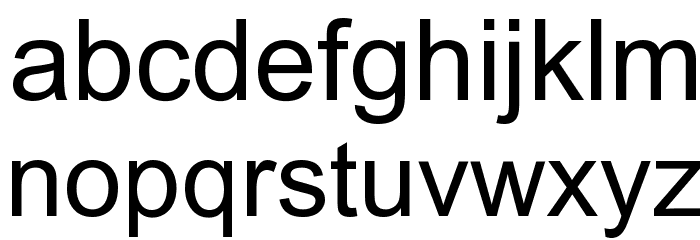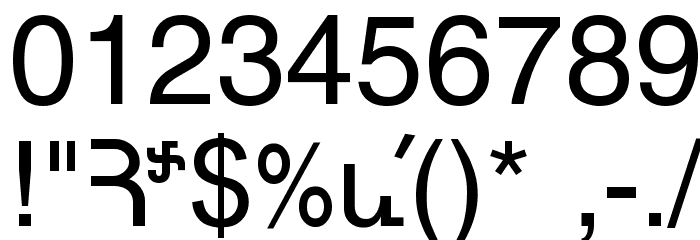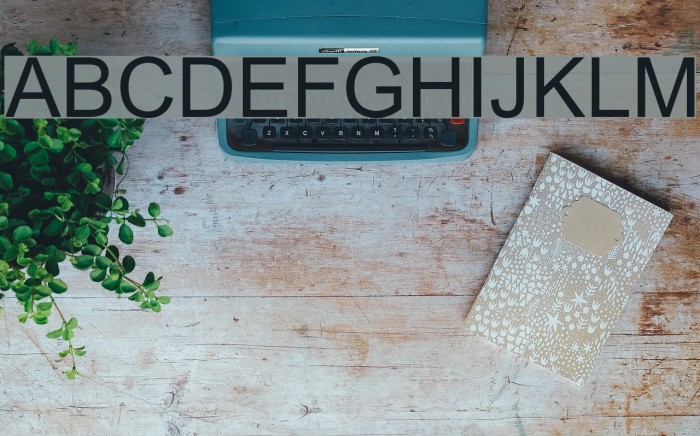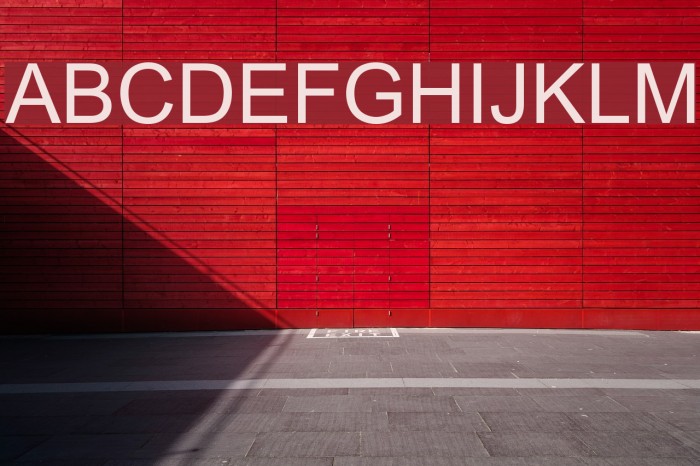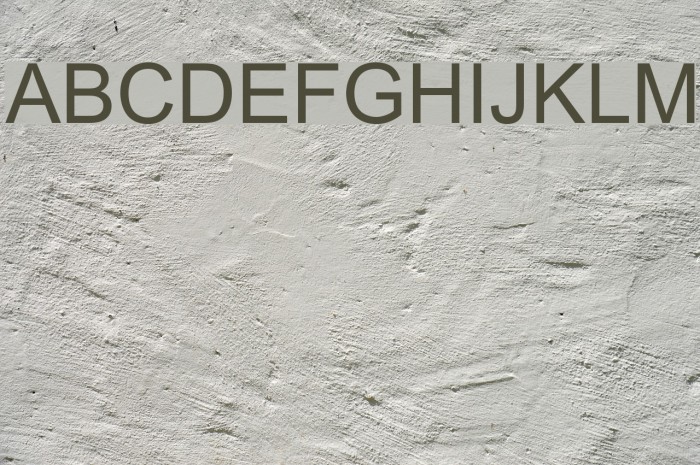
ArTarumianNorMatenagir Font
This font features a clean and modern sans-serif design with uniform stroke widths, providing a sleek and professional appearance. The characters are well-proportioned, with a consistent height and width that enhances readability. The uppercase letters are bold and assertive, while the lowercase letters maintain a balanced and approachable look. Numerals are clear and distinct, making them suitable for both digital and print formats. Special characters are included, offering versatility for various applications. The overall style is minimalistic, making it ideal for contemporary design projects.
A modern, clean sans-serif font with uniform strokes and excellent readability.
- Proposed Projects: Ideal for corporate branding, digital interfaces, editorial design, and advertising materials.